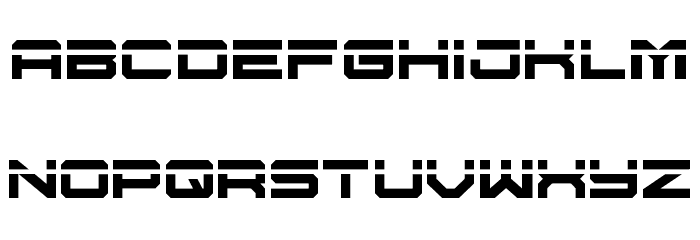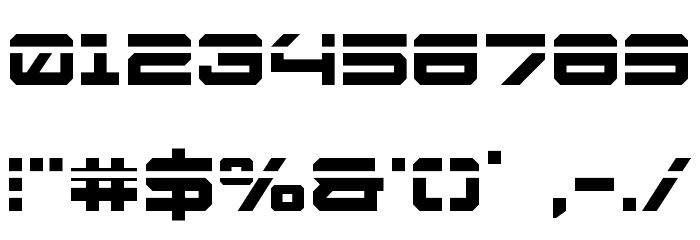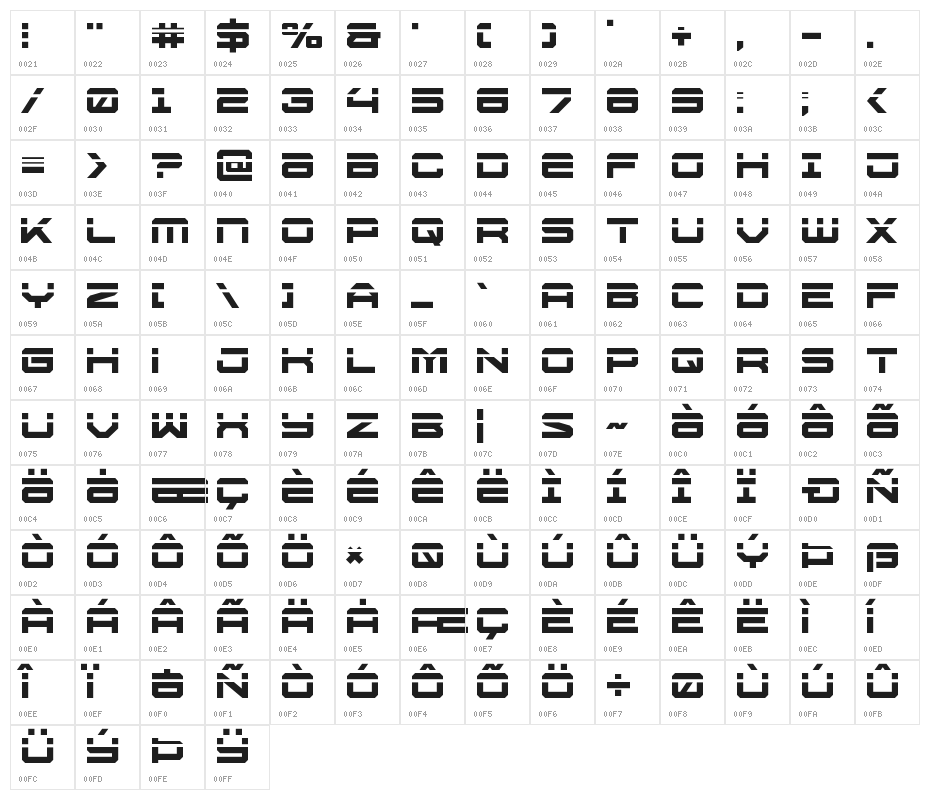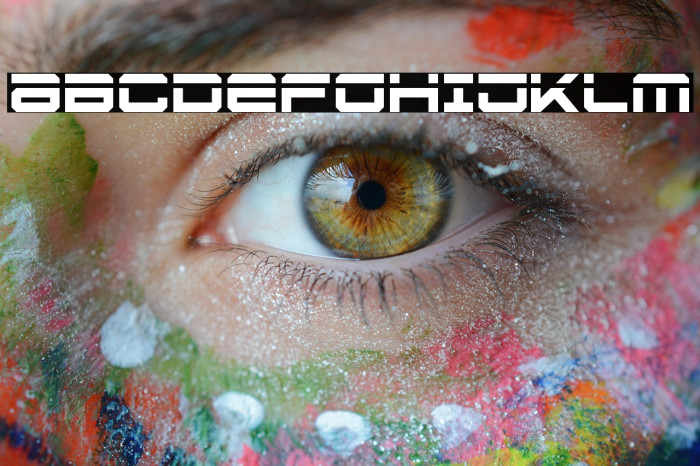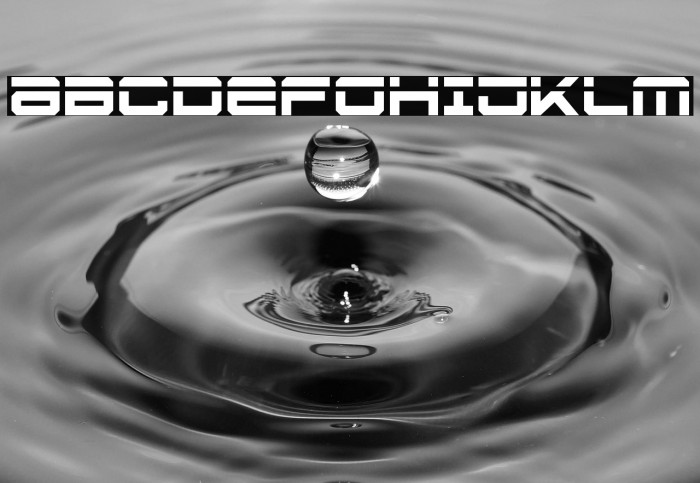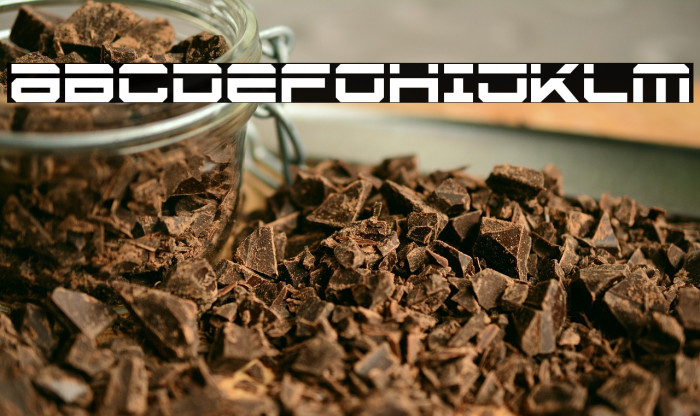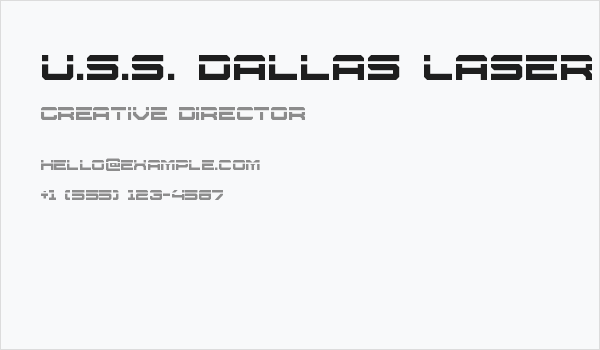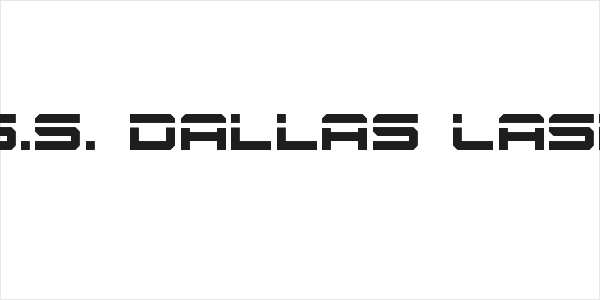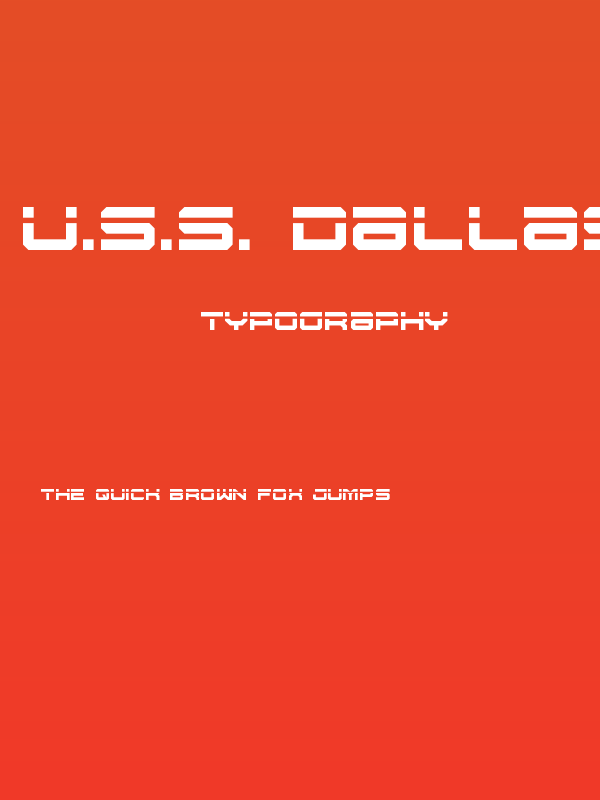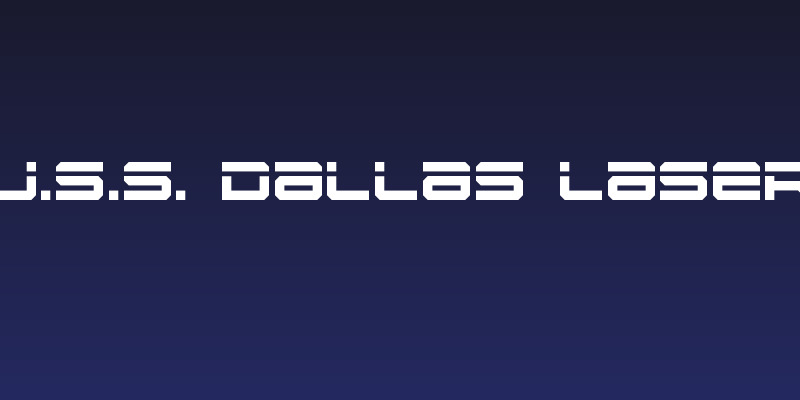
U.S.S. Dallas Laser Font
This font features a futuristic and geometric design, characterized by its bold, angular shapes and consistent stroke width. The uppercase and lowercase letters share a similar structure, creating a cohesive and uniform appearance. The numerals and special characters maintain the same angular style, enhancing the overall modern aesthetic. The font's design is reminiscent of digital or sci-fi themes, making it suitable for projects that require a contemporary and tech-oriented look. Its distinct style ensures high readability while maintaining a unique visual appeal.
A futuristic, geometric font with bold, angular shapes.
- Font: U.S.S. Dallas Laser
- Proposed Projects: Ideal for sci-fi themed designs, tech branding, video game interfaces, and modern posters.